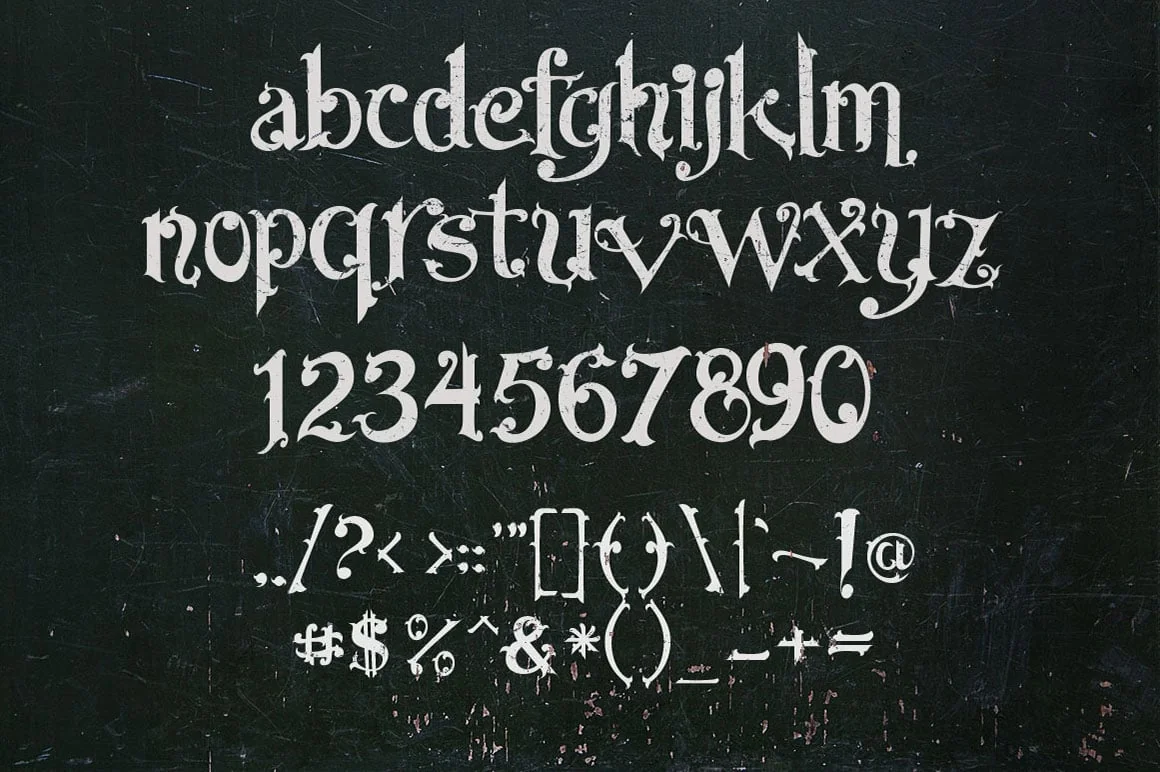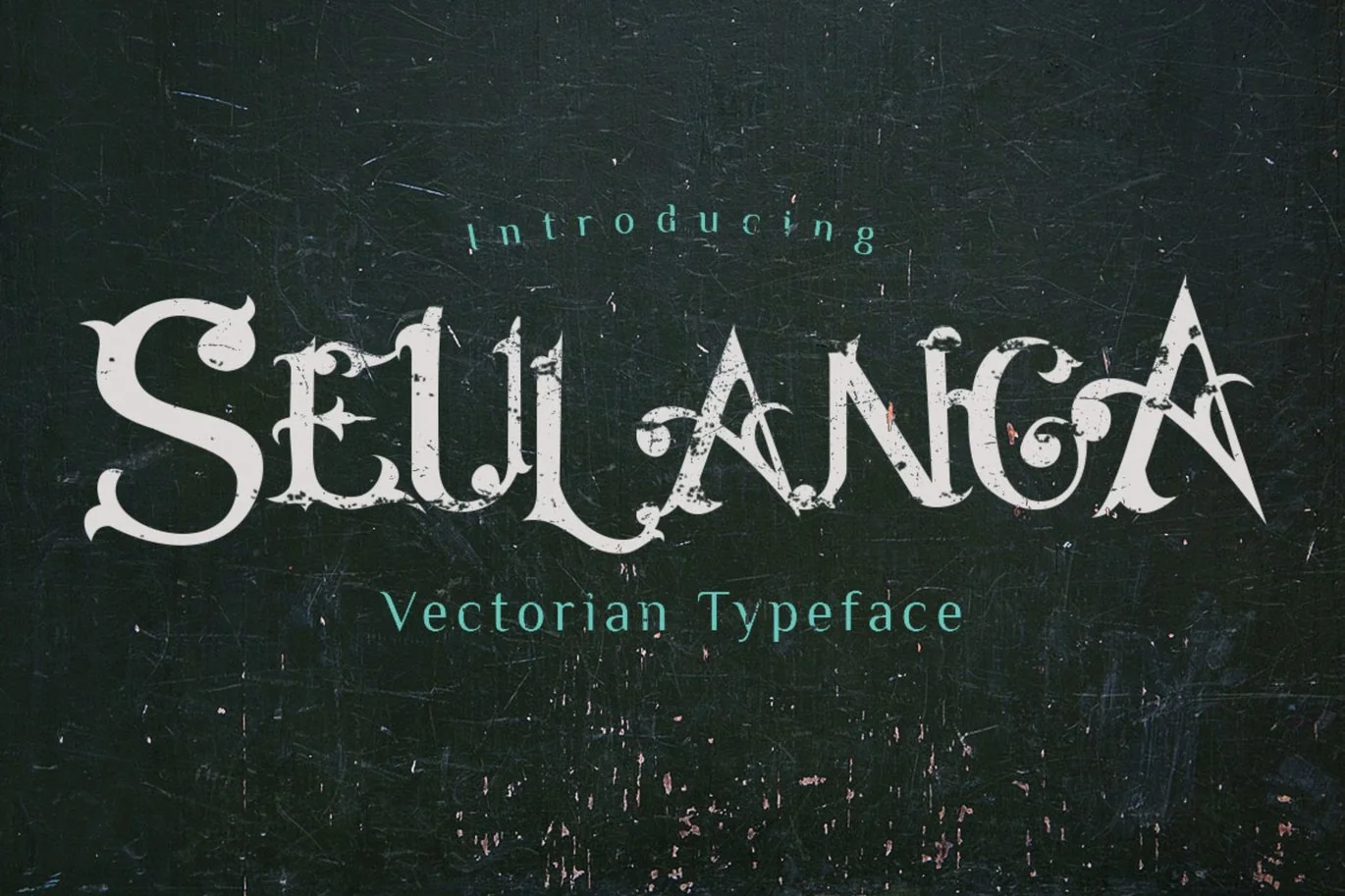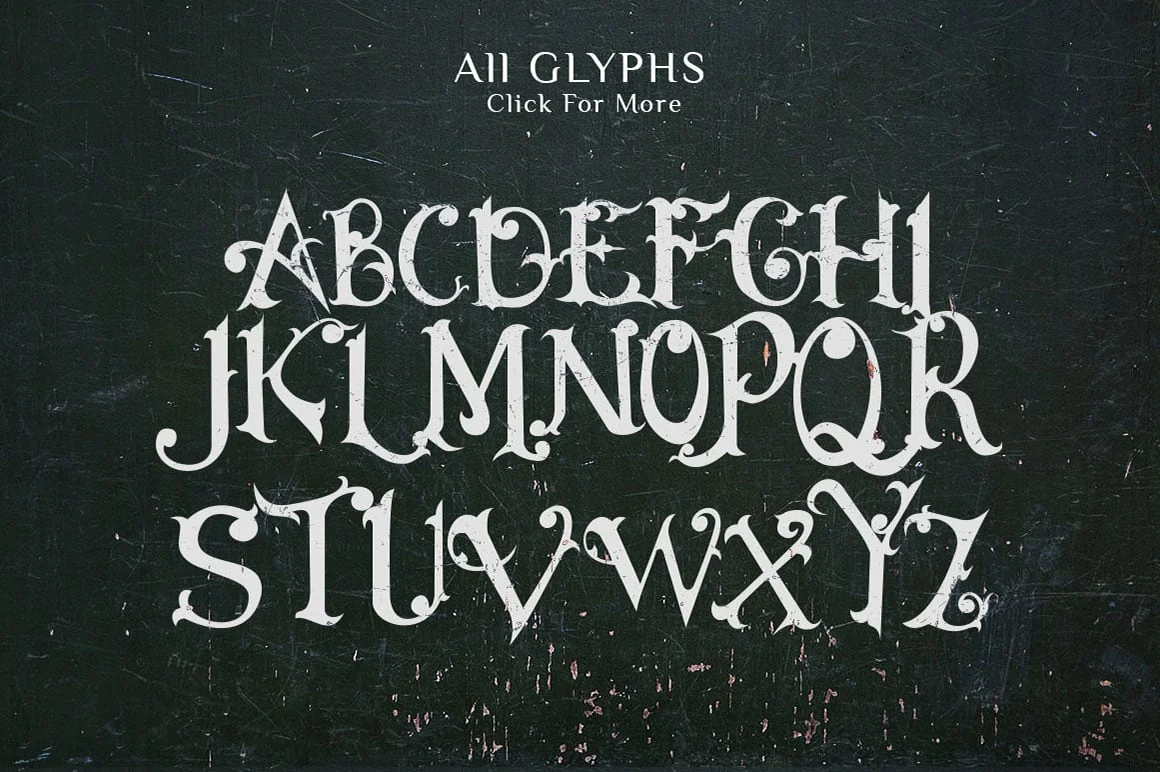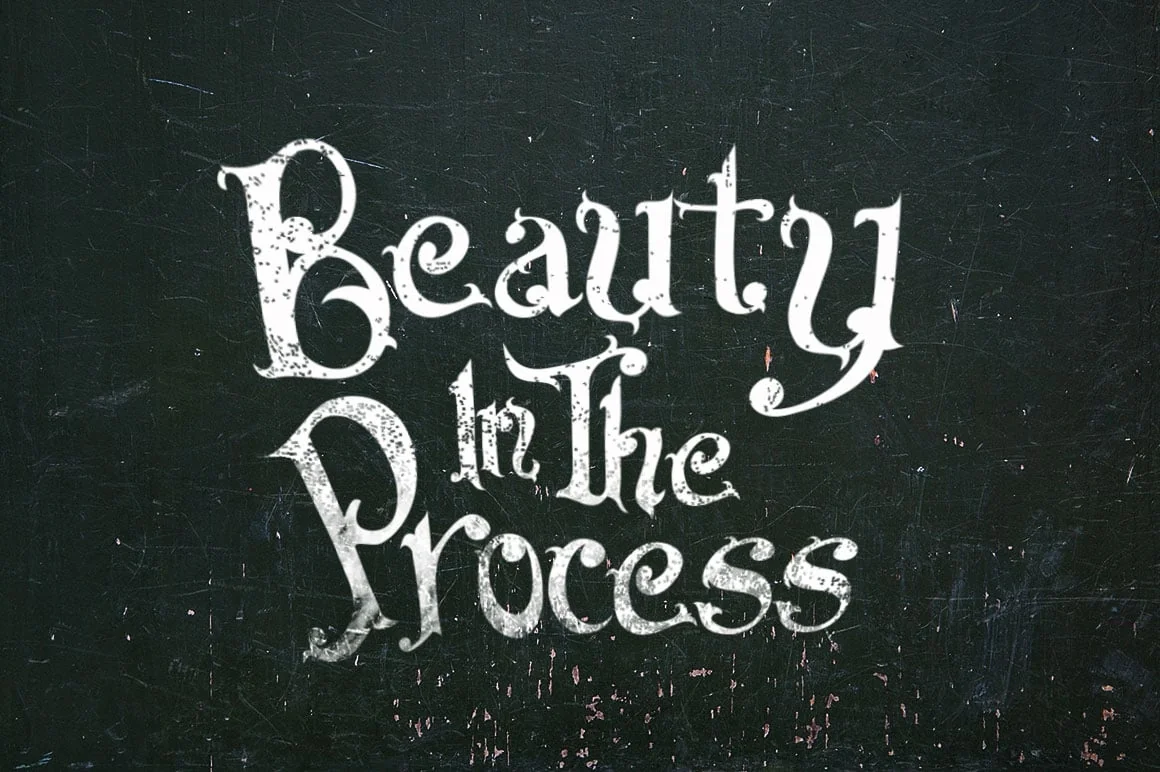
Seulanga Decorative Font
Introducing Seulanga inspired by the flowers that exist in Aceh and some combination of old style font vectorian. Seulanga is multi-purpose and ready to make a statement by adding an elegant and unique talent for the next design project. Seulanga can be used for various purposes such as posters, logos, t-shirts, signage, businnes card, magazines, book covers, wedding invitations, greeting cards etc.